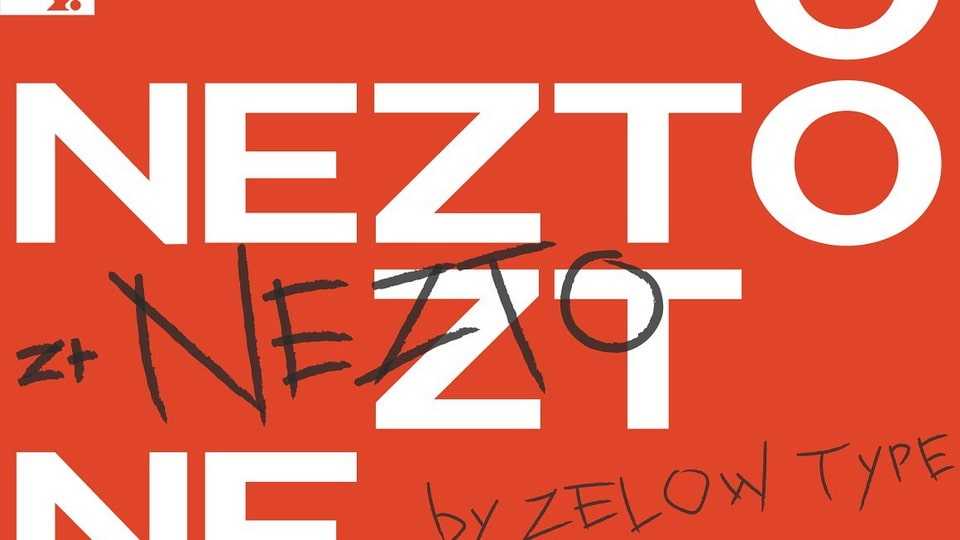
Download ZT Nezto font, a sans serif typeface that focuses on curved areas, bringing out an elegant and refined style. ZT Nezto design with this charming curved shape and still maintains the identity of each weight so it is very beautiful to apply to web design, packaging, or branding.
Designer: Zelow Type